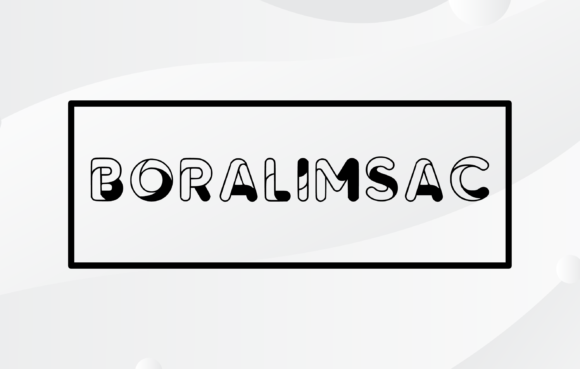
The Designer’s Delight: Boralimsac Font
I’ll never forget the time I was working on a branding project for a crafty client, and I just couldn’t find the right font to match their quirky yet sophisticated vibe. I scrolled through page after page of Google Fonts, but nothing seemed quite right. That was until I stumbled upon Boralimsac – a beautiful and attractive display font that instantly caught my eye. In this article, I’ll share my experience with Boralimsac, its features, and how to make the most of it in your designs.
So, what makes Boralimsac so special? Let’s dive into the good stuff and a few quirks I’ve discovered.
• ✨ Unique and original design that’s sure to stand out
• ✅ Highly versatile, perfect for titles, letterheads, and stationery
• 🎨 Great for creative projects, such as invitations, posters, and flyers
• 💻 Works beautifully in both digital and print formats
While Boralimsac is an amazing font, there are a few things to keep in mind:
• ⚠️ May not be suitable for body text due to its display nature
• 🤔 Limited availability of certain characters or glyphs
Boralimsac was created with the intention of providing a unique and versatile font for designers and crafty enthusiasts. While I couldn’t find any specific information on the designer’s background, it’s clear that Boralimsac was crafted with love and attention to detail.
Font Name Boralimsac Font
Author Cool Worker
Q: What type of projects is Boralimsac best suited for?
A: Boralimsac is perfect for creative projects, such as titles, letterheads, stationery, invitations, posters, and flyers.
Q: Is Boralimsac available in different weights or styles?
A: Currently, Boralimsac is available in a single weight, but its versatility and range of glyphs make it suitable for various design applications.